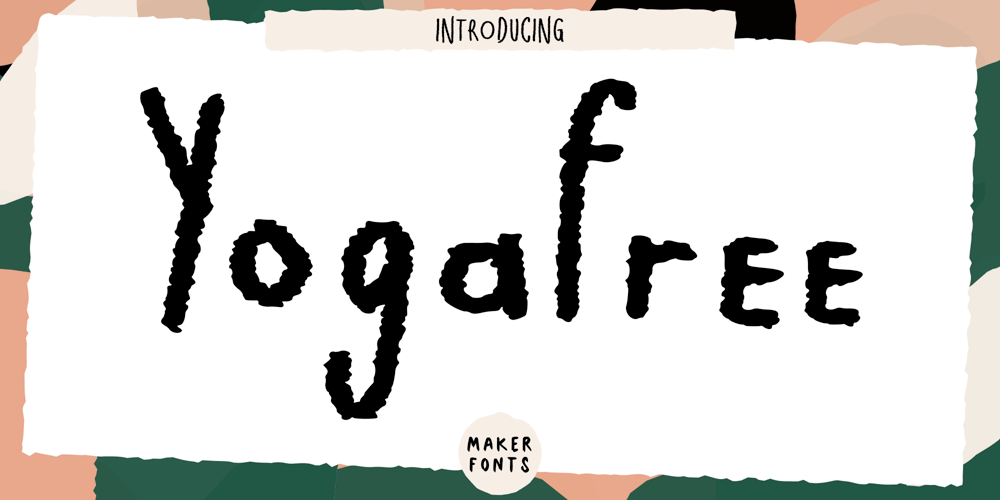
MF Yogafree
MF Yogafree font
MF Yogafree Font Family was designed by Matthew Robert and published by Maker Fonts. MF Yogafree contains 1 styles and family package options. MF Yogafree is a new handmade font from Maker Fonts.Perfect for greetings cards, packaging, and any use where a bold yet personal touch is needed. Let MF Yogafree bring freedom of expression in your next project!The font comes with a large western character set and lots of glyphs.Opentype features include: Ligatures, Contextual Alternates, and Stylistic Sets (ss01-ss05) that all combine to create a natural handwritten texture.